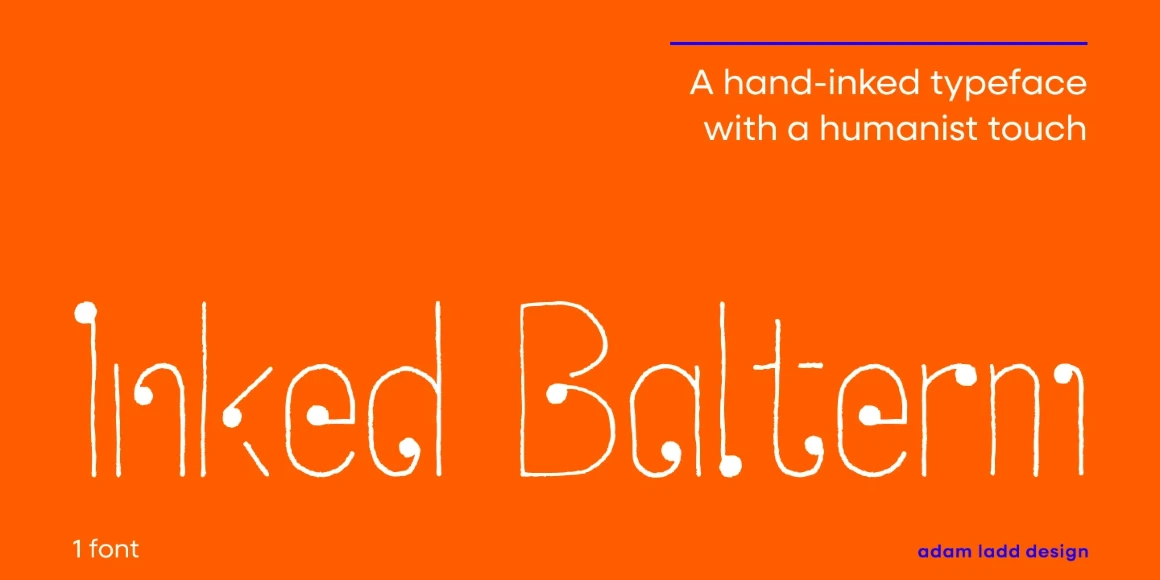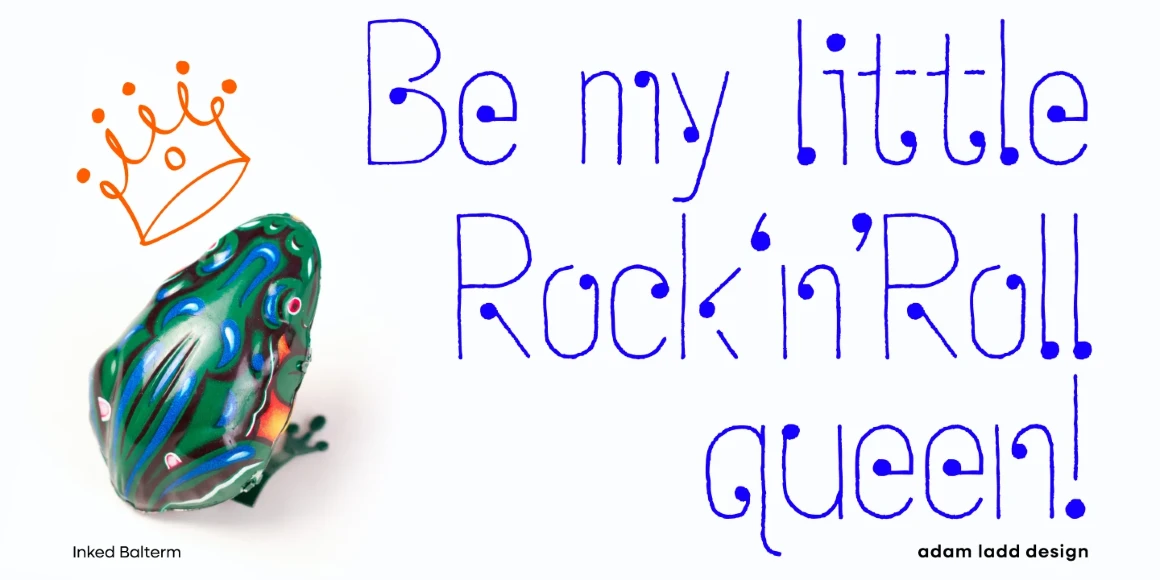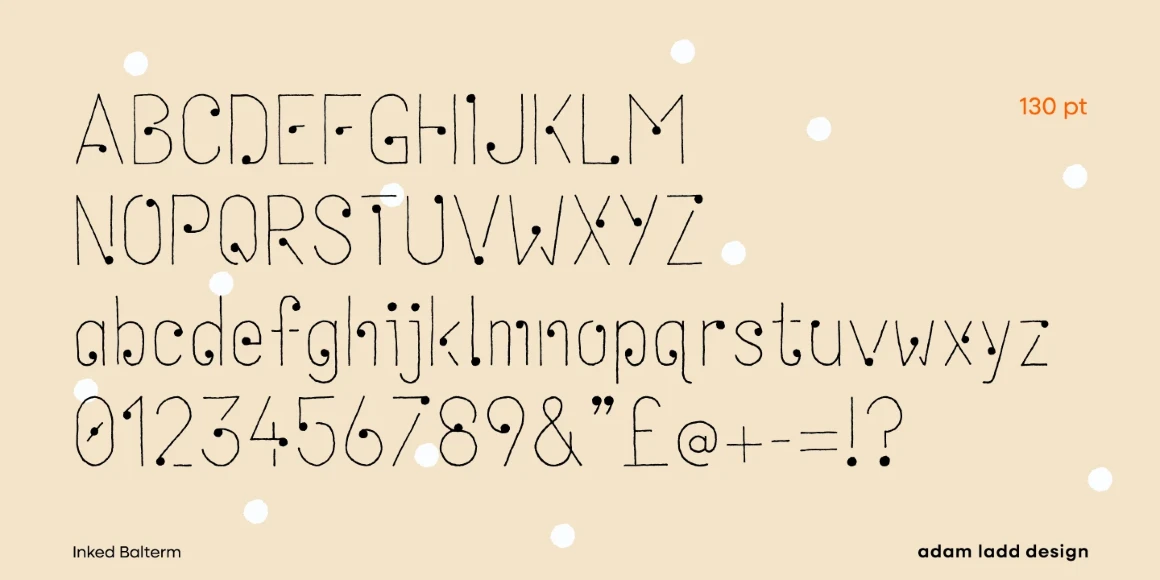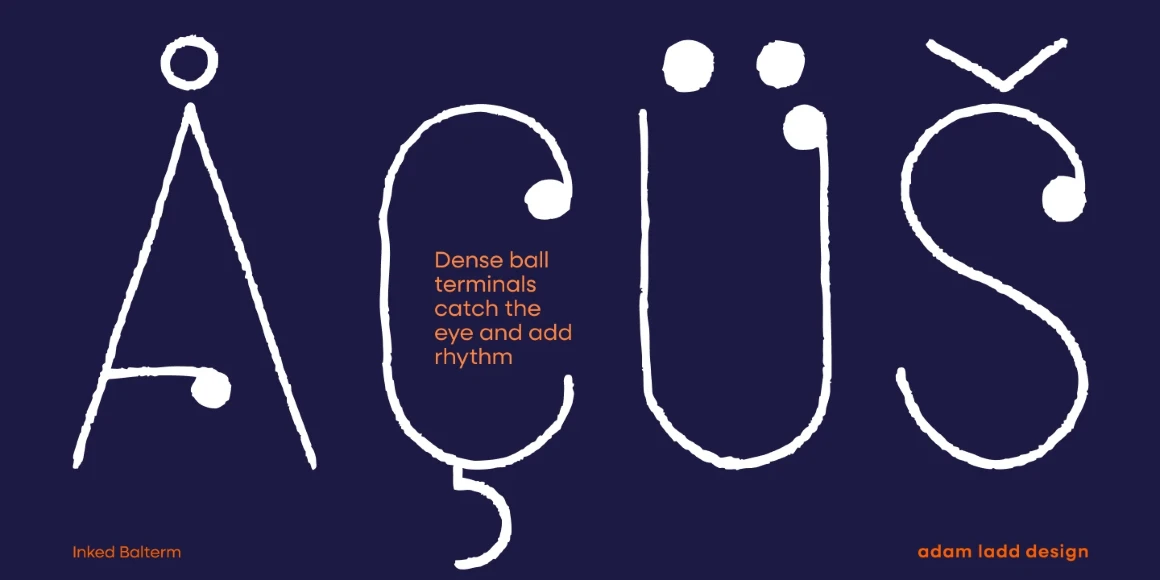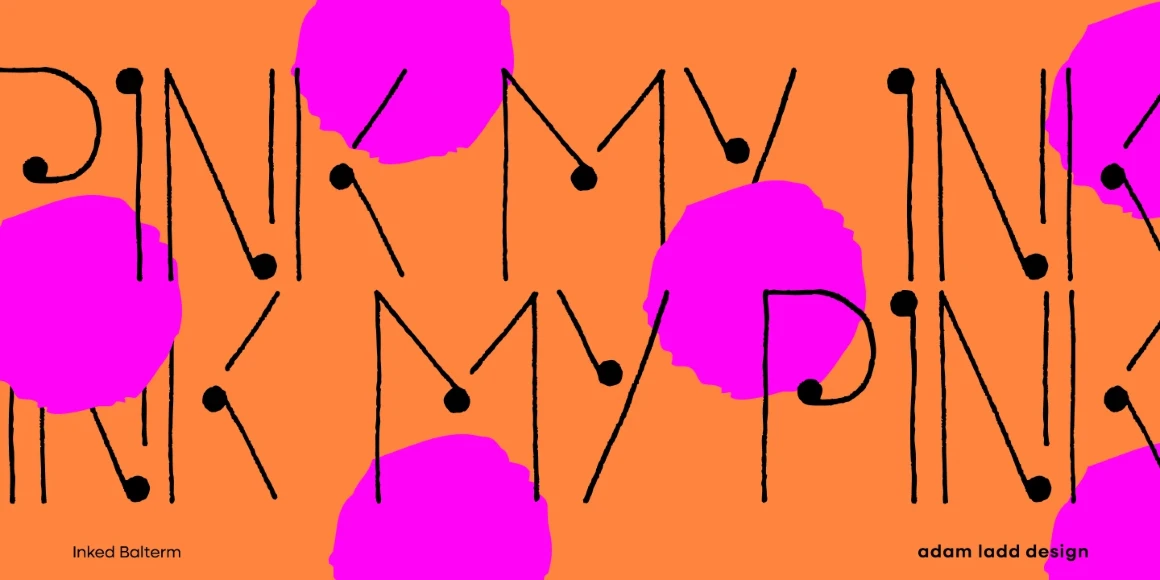
Inked Balterm
From Adam Ladd Design
Meet Inked Balterm, the epitome of hand-lettered playful charm. The design dances between thin syncopated strokes and solid ball terminals, strategically underscoring the stencil-like letters’ unique features. It weaves an enticing rhythm for almost anything requiring a specific and distinct voice, such as media branding, food packaging, travel brochures, and magazine headlines. Inked Balterm brings an inky charm, demanding attention and sparking creativity. Get ready to captivate your audience!
Designed by Adam Ladd